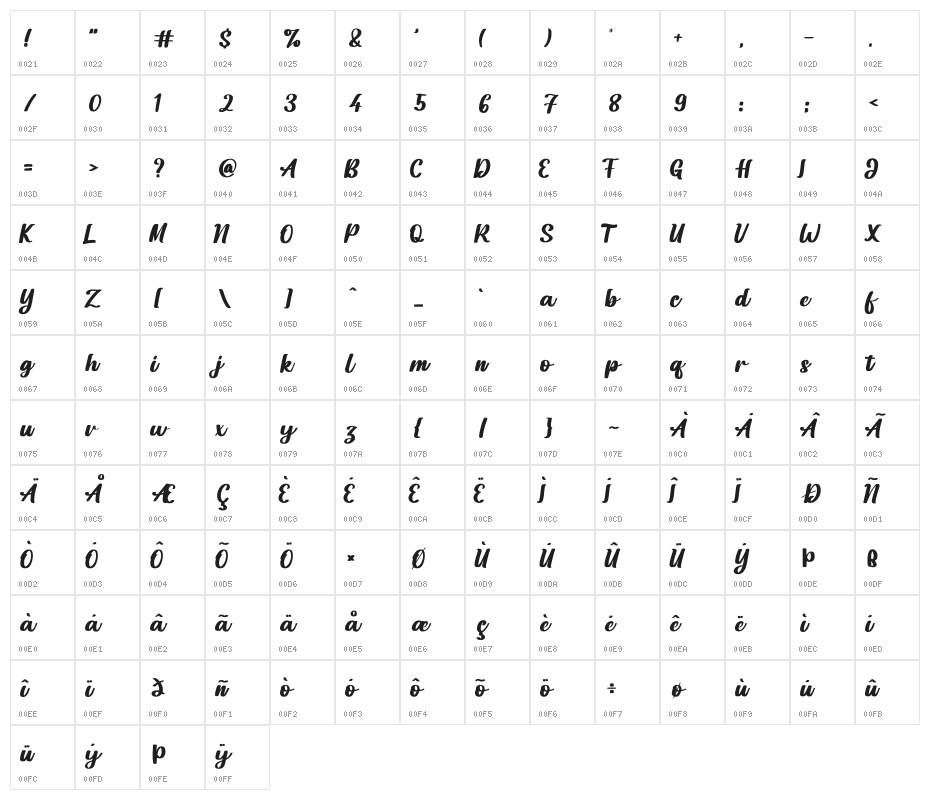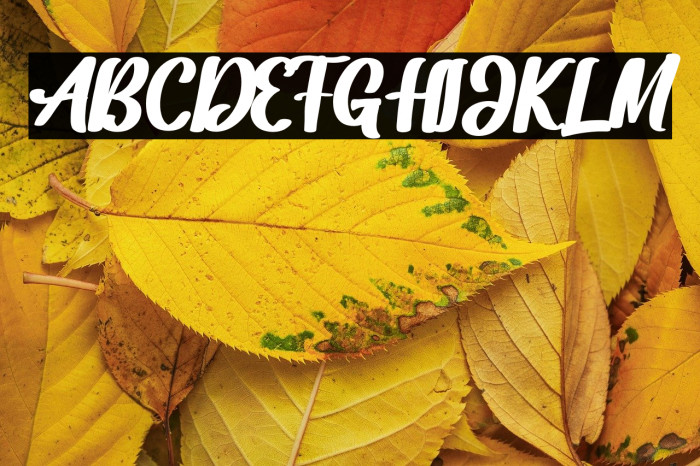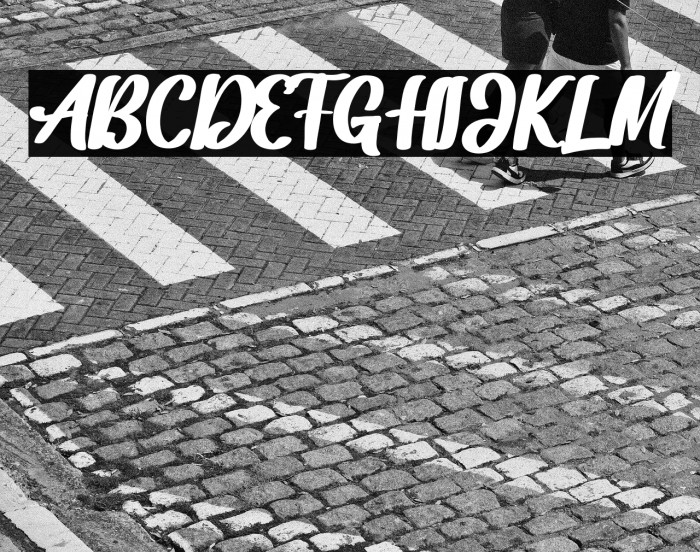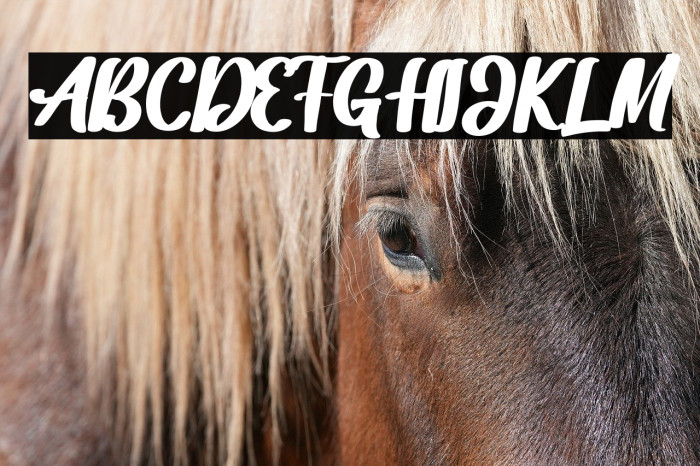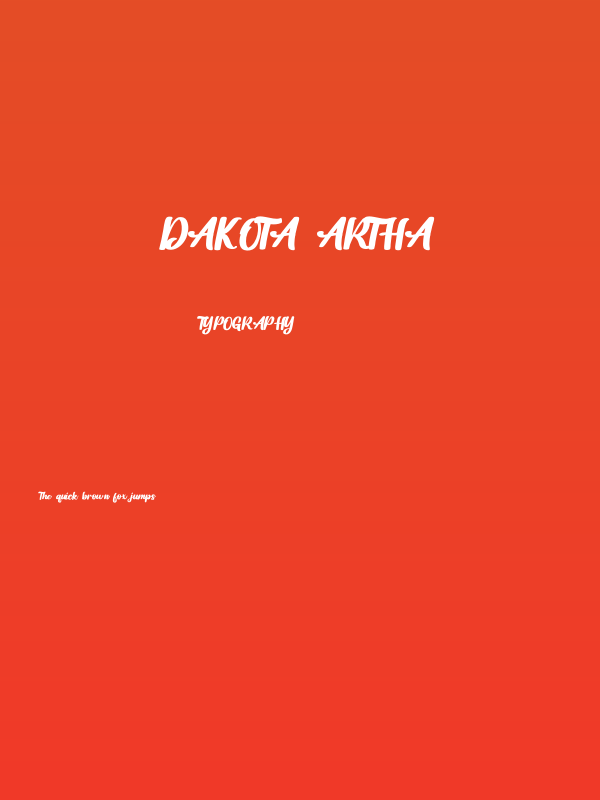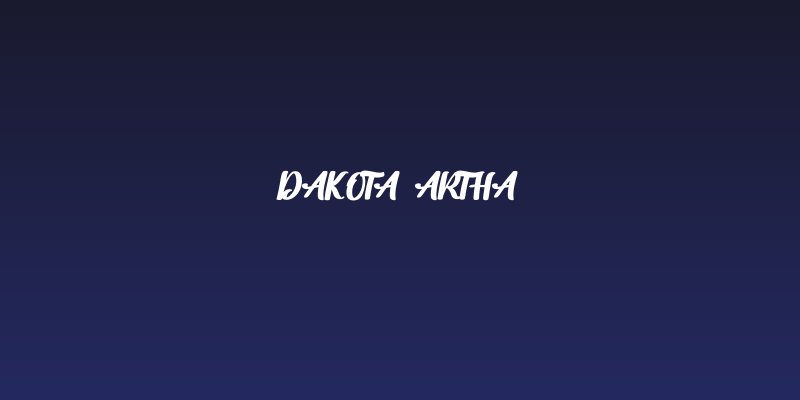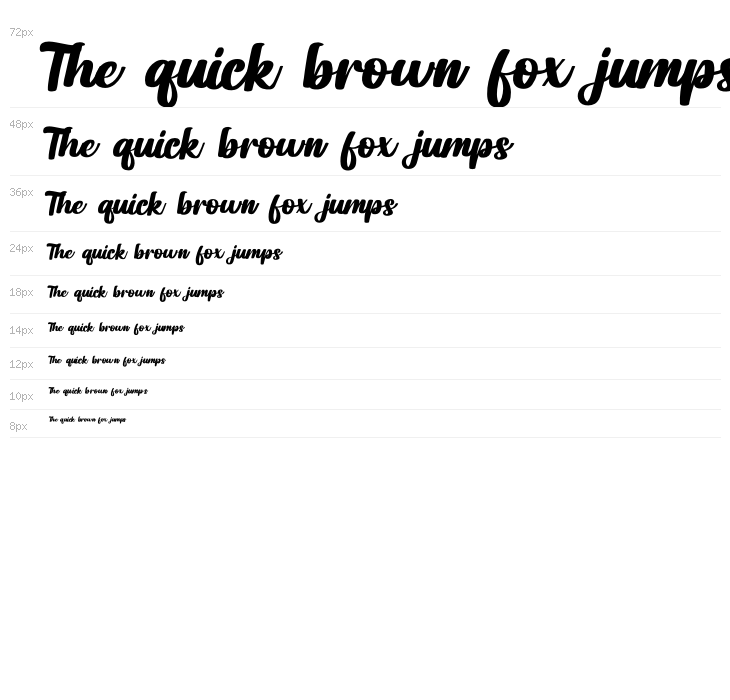
Dakota Artha Font
Dakota Artha Description
This font features a bold and flowing script style, characterized by its smooth, cursive strokes and elegant curves. The uppercase letters are slightly larger and more pronounced, while the lowercase letters maintain a consistent flow, enhancing readability. The numerals are distinct and well-integrated with the overall design, and the special characters complement the font's aesthetic. The font exudes a sense of sophistication and creativity, making it suitable for various artistic and decorative applications.